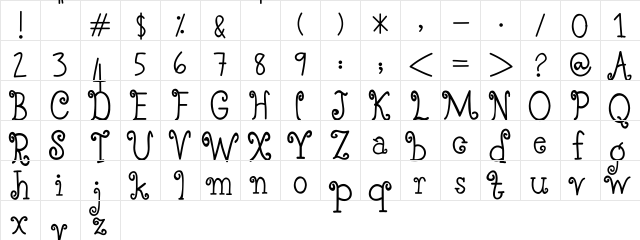
So Far So Good Regular
So Far So Good is a composed and adaptable typeface that performs quietly and consistently across a wide range of design contexts.